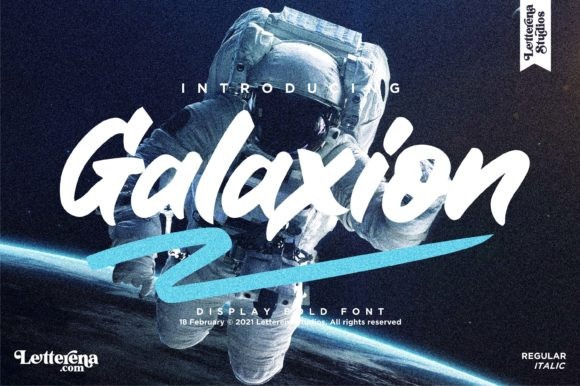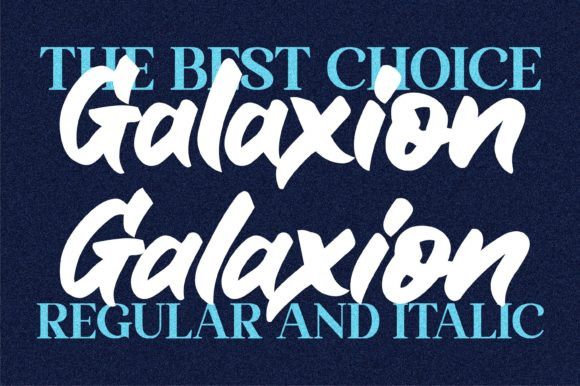
Galaxion Font
Galaxion is an unique display font. Whether you’re using it for crafting, digital designing, presentations, or greeting card making, it’s perfect!